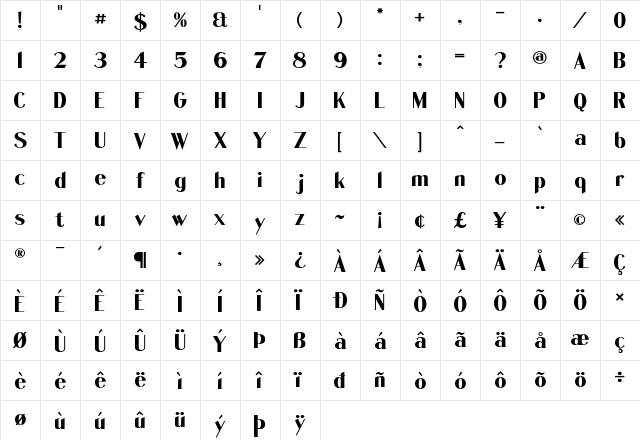
Quentell CF Bold Regular
| Foundry | Chuck's Fonts (CF) |
| Designer | Chuck Mountain (after William P. Quentell) |
Design Context for Quentell CF Bold Typeface
Quentell CF Bold is a composed and adaptable typeface that performs quietly and consistently across a wide range of design contexts. Its bold stroke weight gives it real presence on the page.